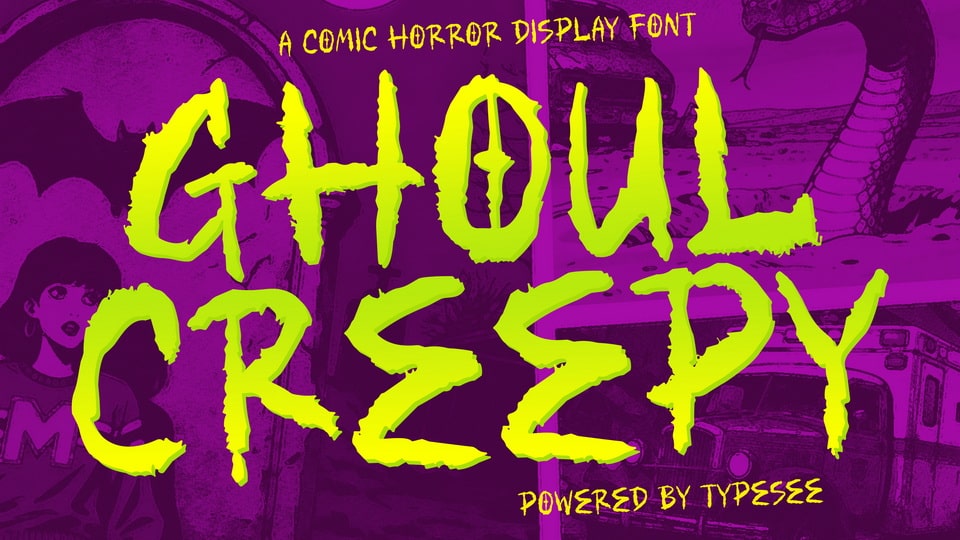
Download Ghoul Creepy font, a bold comic horror display typeface with jagged edges and hand-drawn energy. Perfect for spooky posters, Halloween titles, and eerie designs that need a mix of fear and fun.
Designer: Typesee Typefoundry